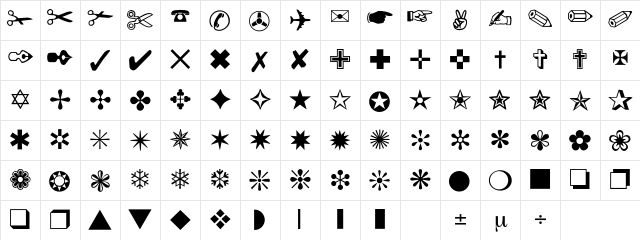
Nicesymbols Regular Free Font
Nicesymbols Regular
Design Context for Nicesymbols
Nicesymbols is a composed and adaptable typeface that performs quietly and consistently across a wide range of design contexts.